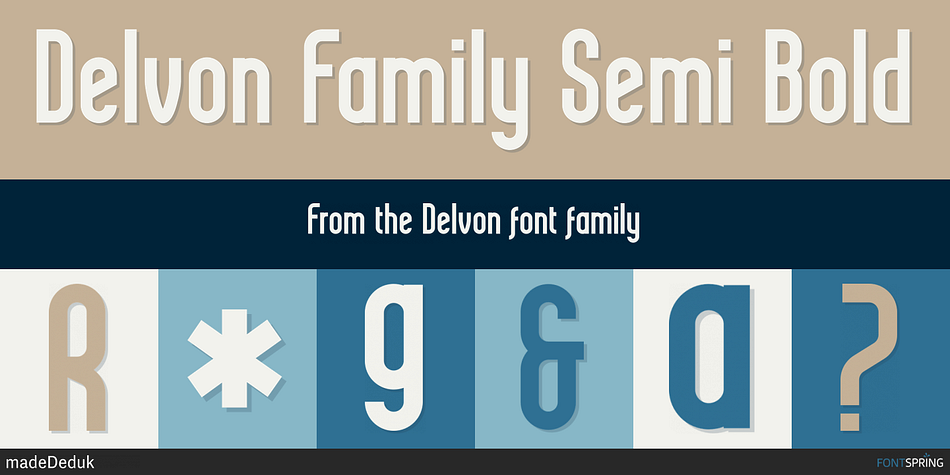
Delvon Family Semi Bold
Designed by Suandana Ipandemade, Delvon is a display sans font family. This typeface has twenty-four styles and was published by madeDeduk.
Delvon is a modern sans serif font family. suitable to create any branding, product packaging, invitation, quotes, t-shirt, label, poster, logo etc.
Delvon Family